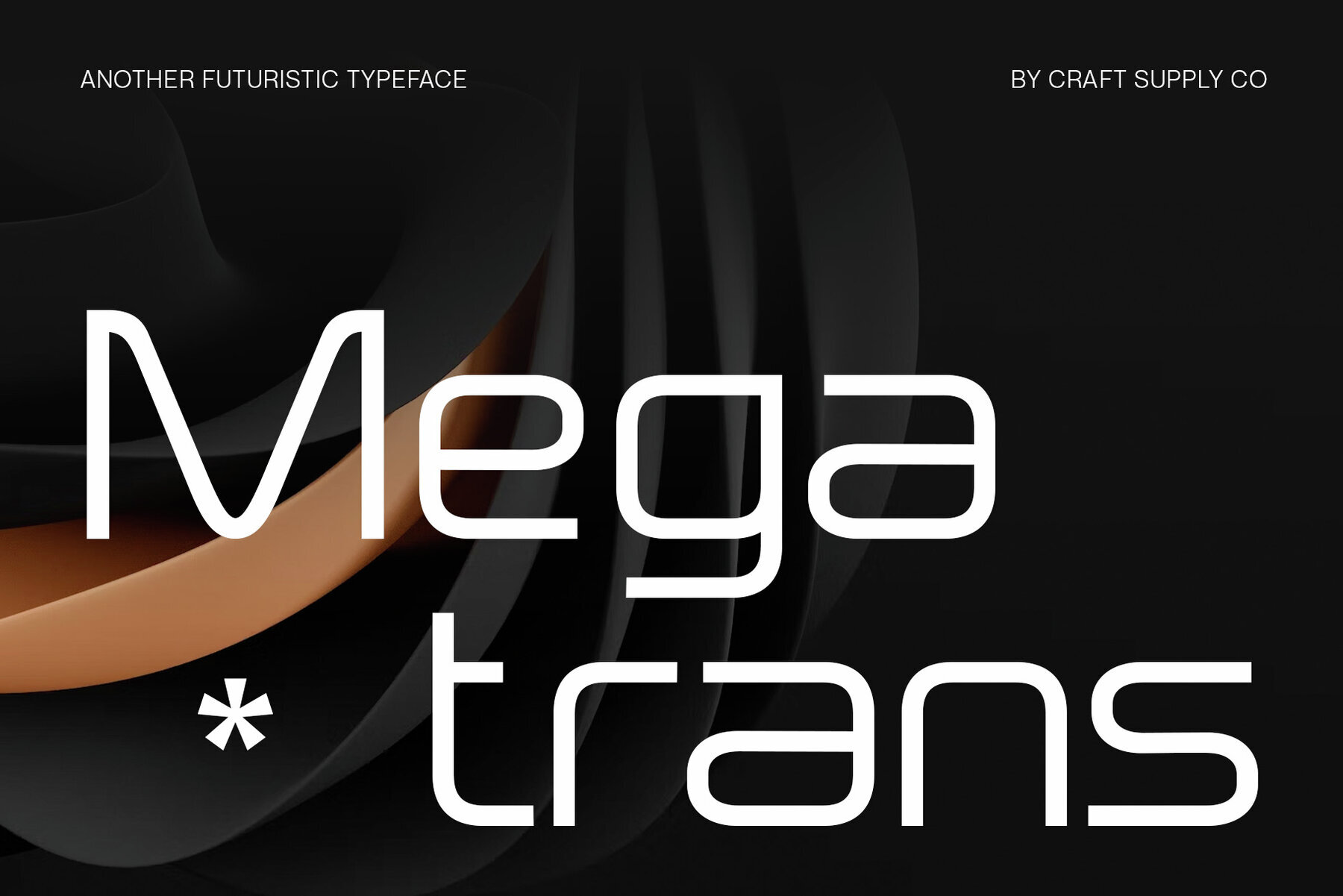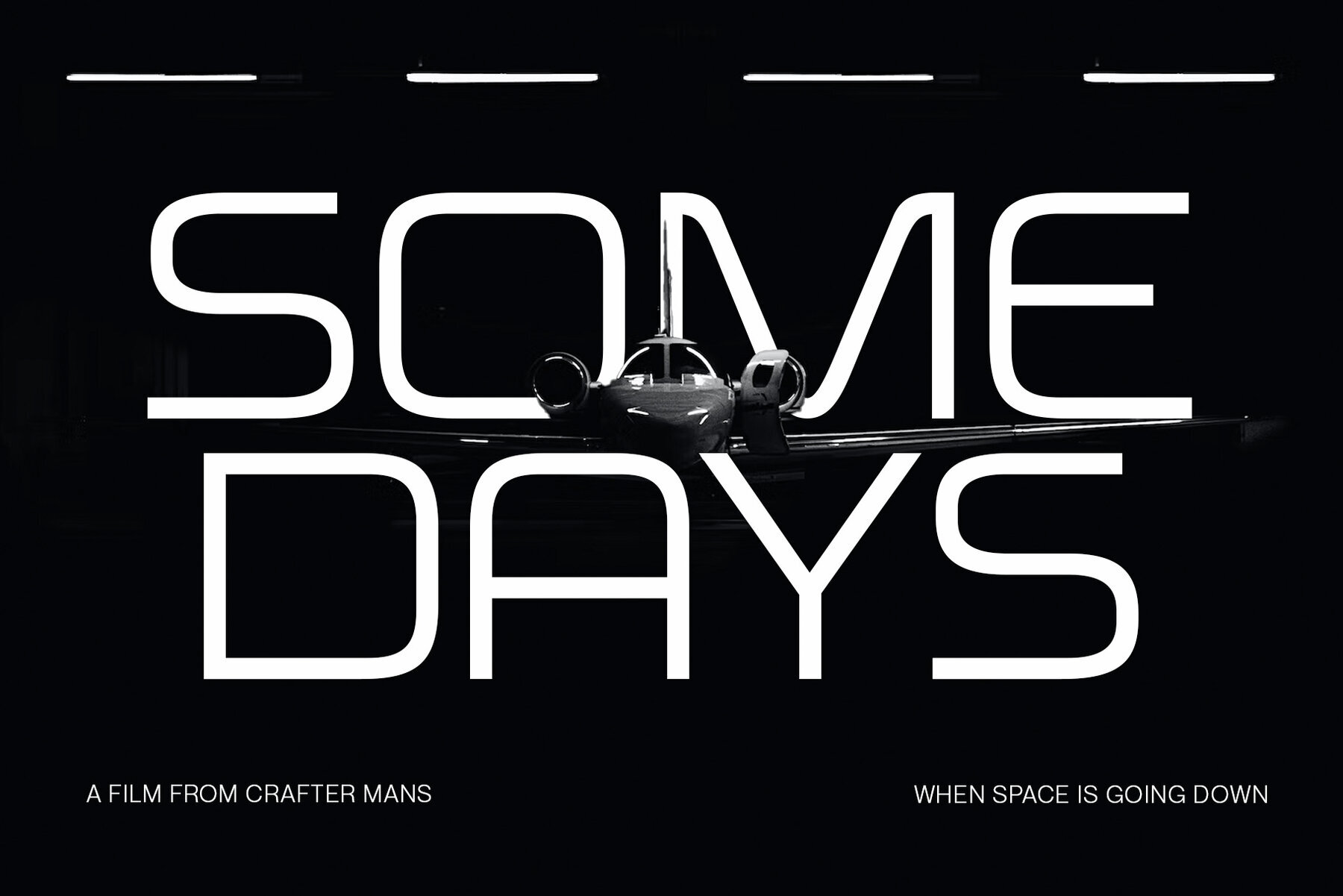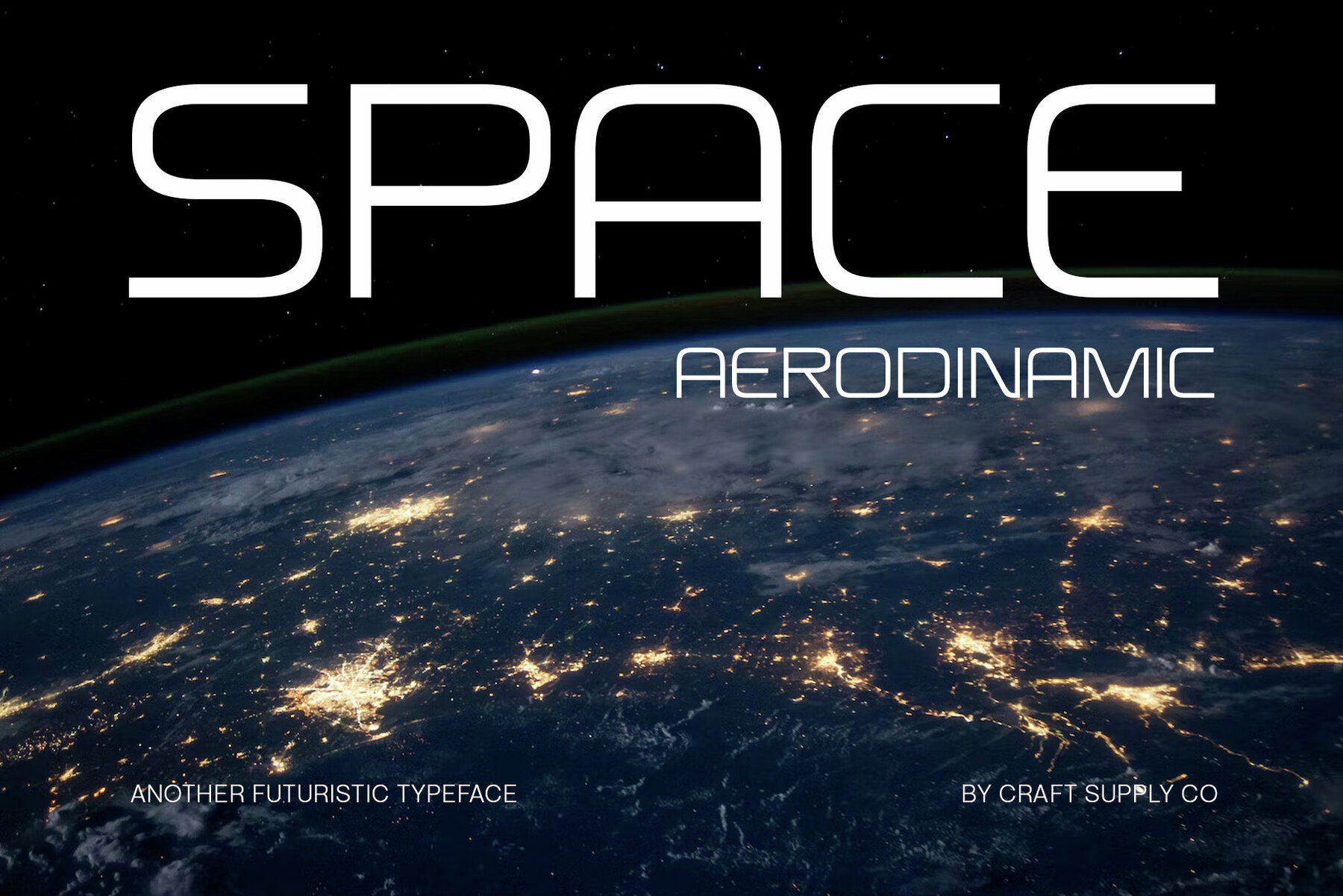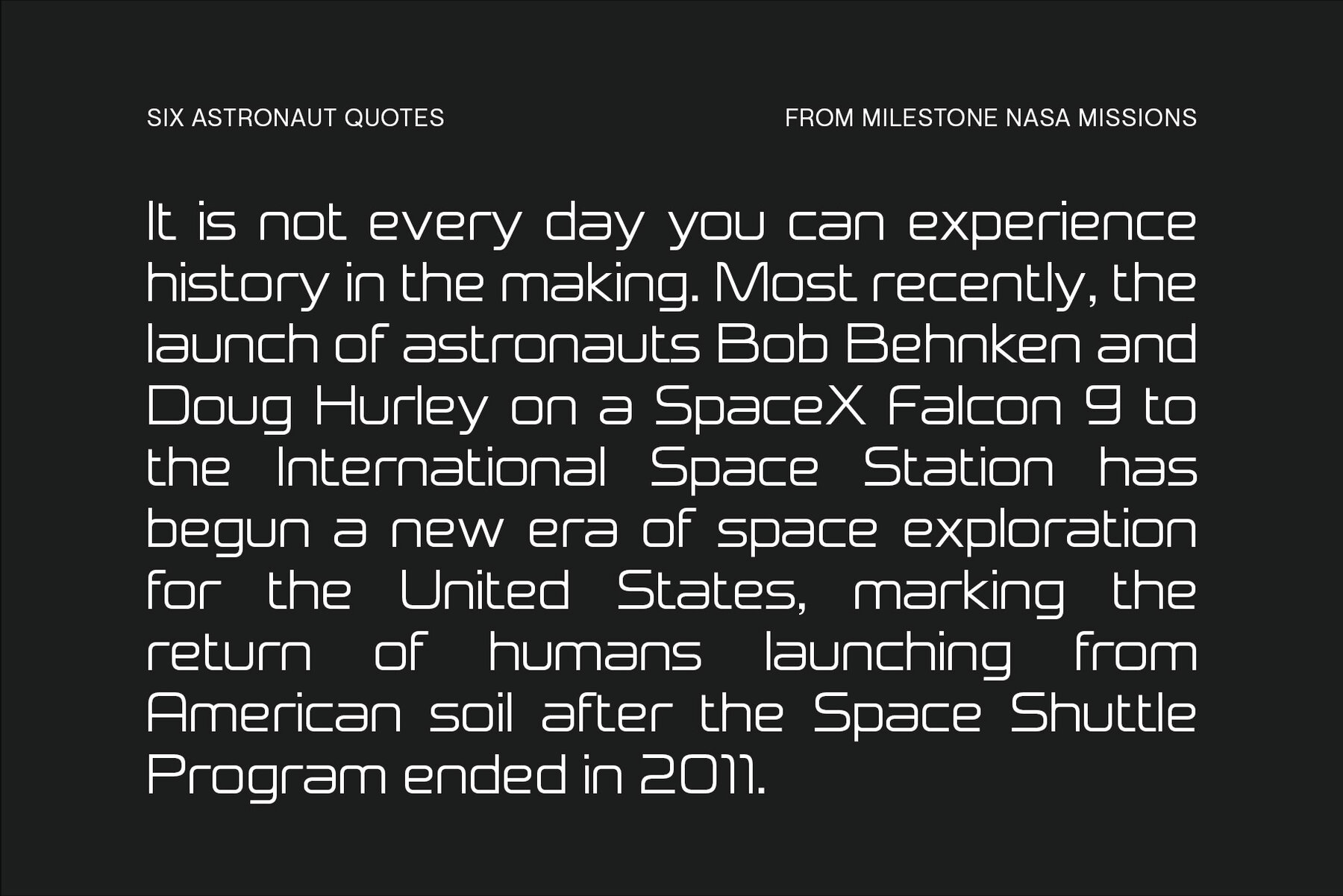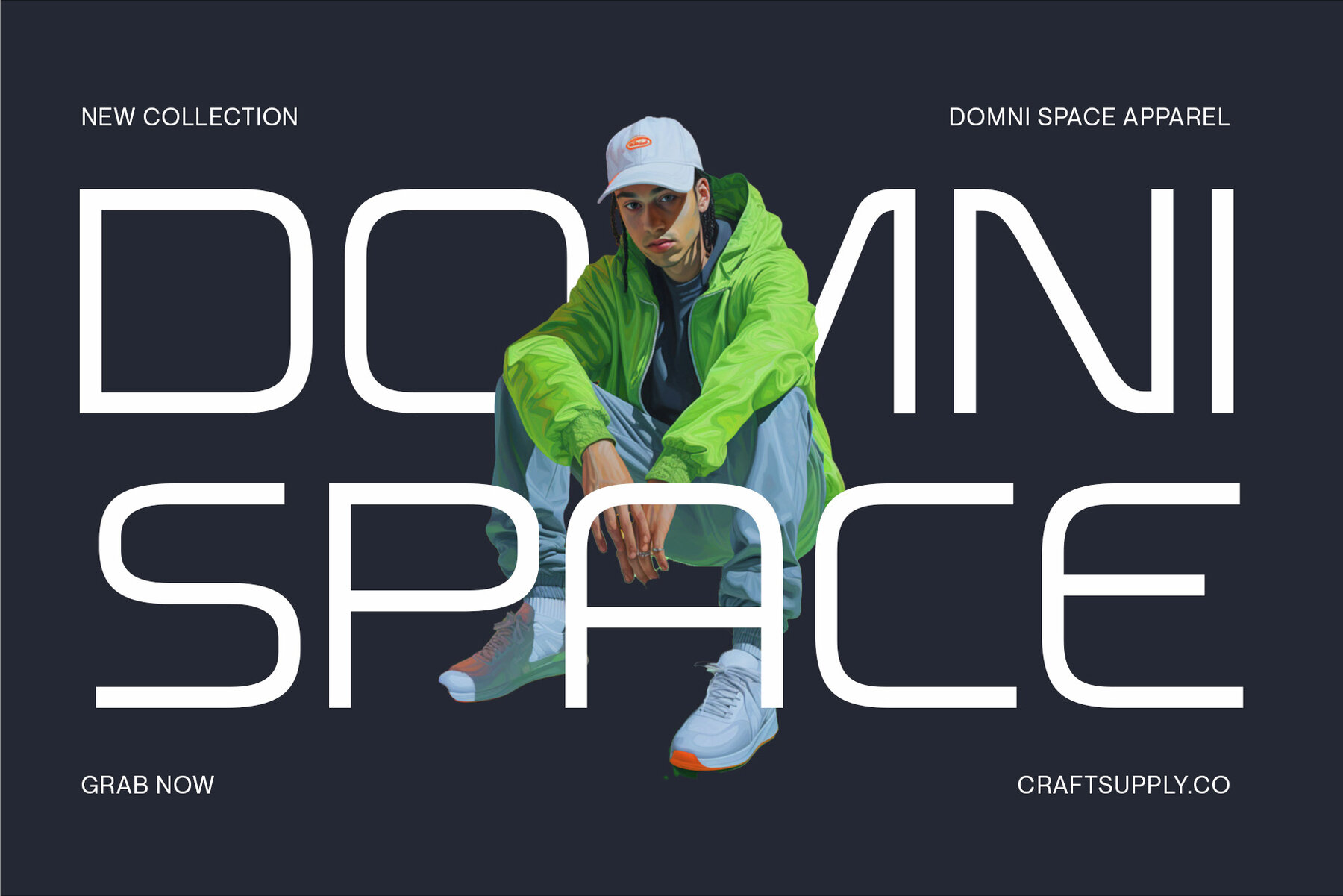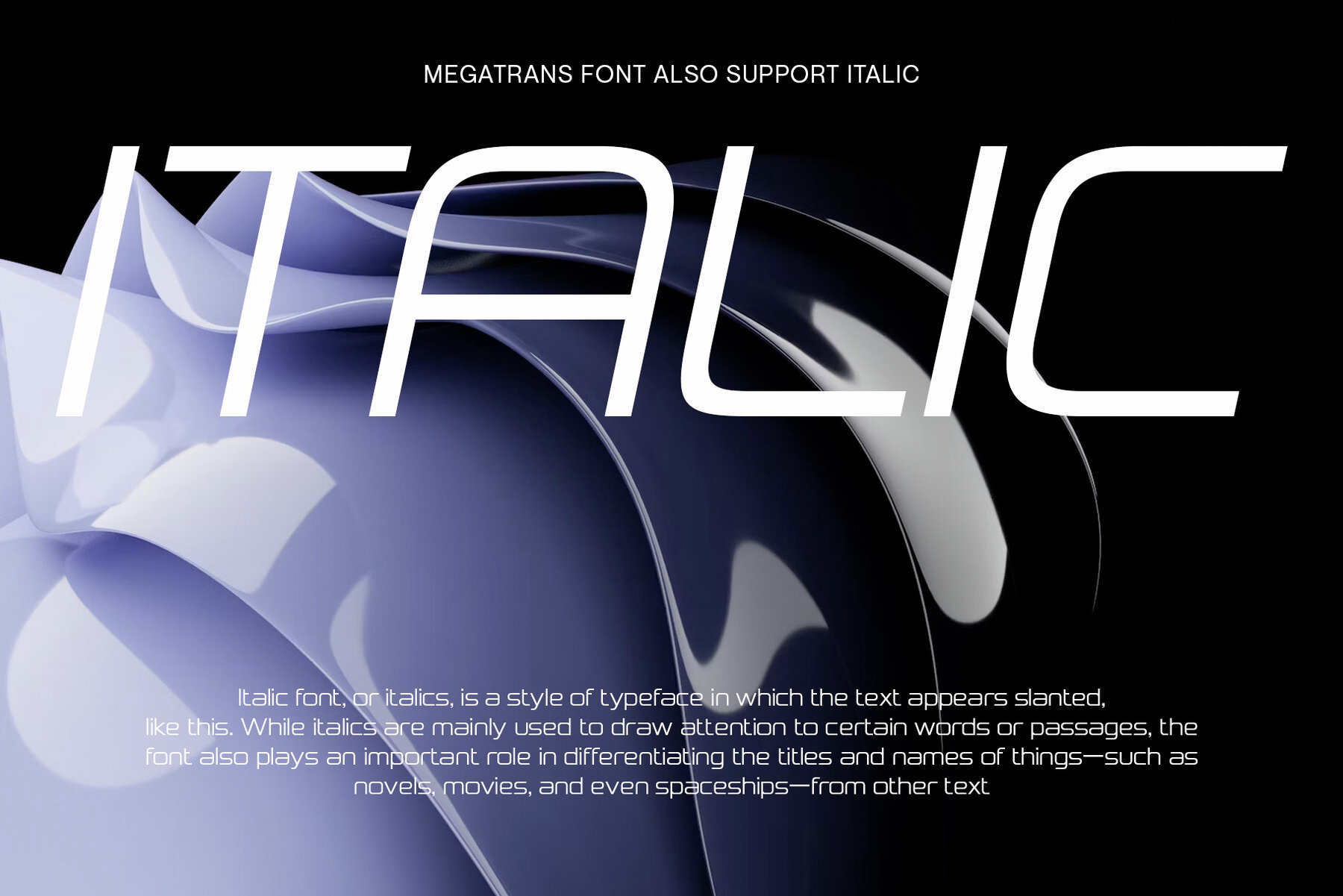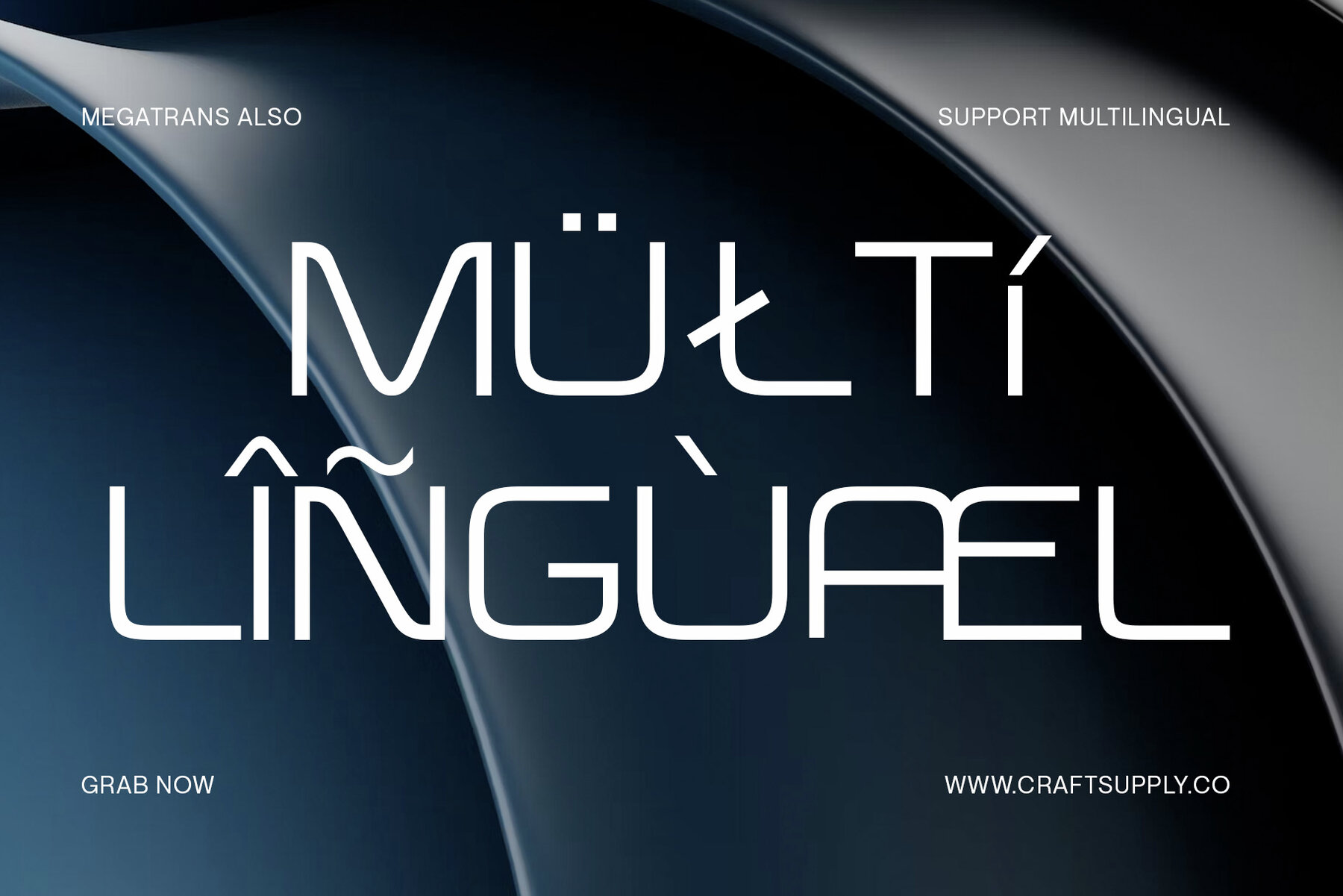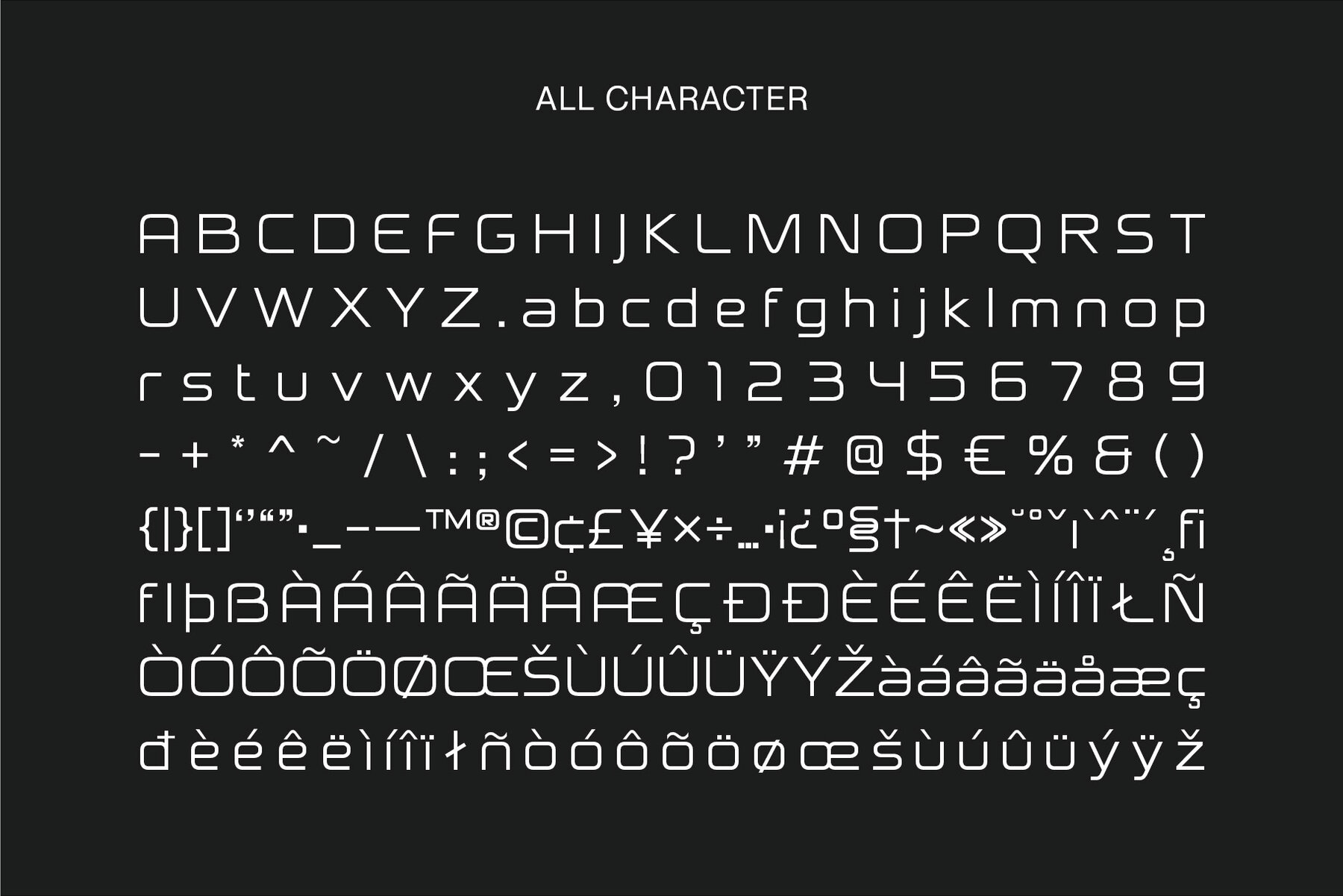
Megatrans Font
Introducing Megatrans: A font from the future, where innovation and design meet. With its sleek lines and visionary style, Megatrans embodies a sense of futuristic aesthetics. Transform your projects with Megatrans' cutting-edge presence, adding a touch of tomorrow to your creative endeavors. This typeface is ideal for greeting card, packaging, brand identity, poster, or any purpose to make your design project look eye catching and trendy. Feel free to play with this typeface!